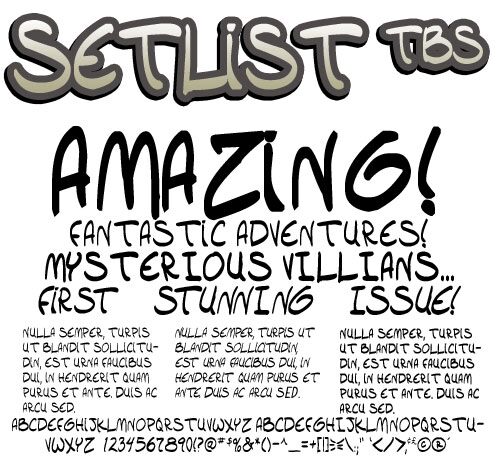
Setlist TBS Bold by Teabeer Studios is a free handwritten display font with broad, brushlike strokes and an easygoing concert-poster attitude. The letters shift in width and angle, with blunt joins and rounded turns that preserve the quick movement of hand-painted signage. Its uneven forms look lively rather than polished.
Music and nightlife themes make it a natural fit for gig posters, festival merchandise, and bar branding, where the loose strokes echo marker lettering on a set list. In editorial design, it can give magazine cover lines about bands, touring, or street culture the directness of a handwritten note.